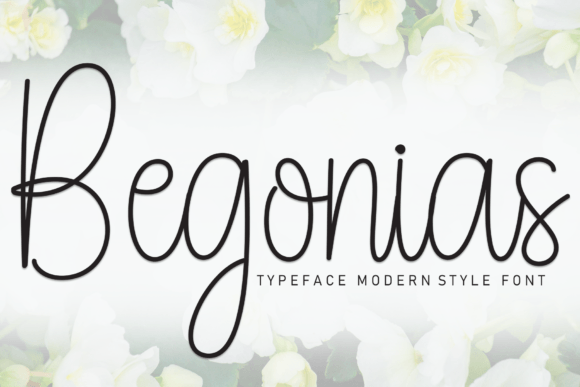
Prepare yourself to be captivated by Begonias Font, a mesmerizing handwritten script typeface that embodies elegance and grace. Inspired by the delicate charm of blooming begonias, this font will add a touch of floral beauty to your creative projects.
With its intricate details and flowing curves, Begonias Font captures the essence of nature's artistry. Its organic and fluid lines evoke a sense of romance and whimsy, making it the perfect choice for invitations, stationery, branding, and projects seeking a unique and enchanting aesthetic.
Imagine your words coming alive with the captivating allure of Begonias Font. Its versatile style lends itself effortlessly to a wide range of applications, from wedding invitations and greeting cards to social media graphics and website designs. Let your creativity bloom and elevate your projects with the timeless beauty of Begonias Font.